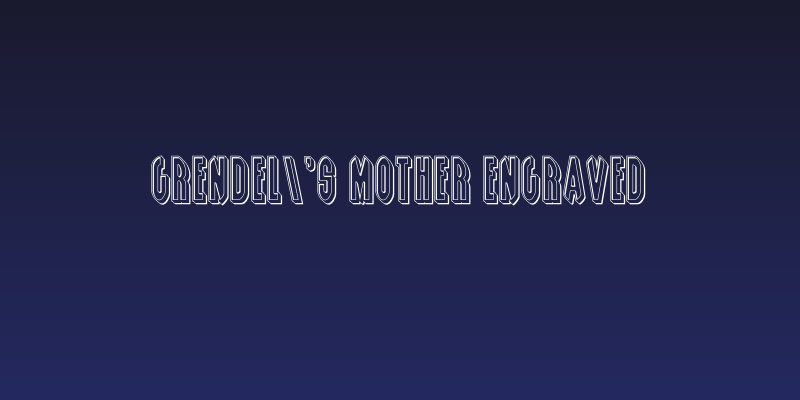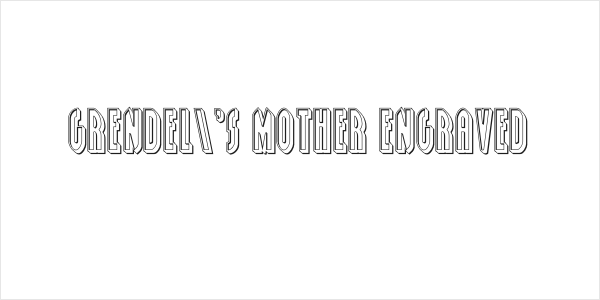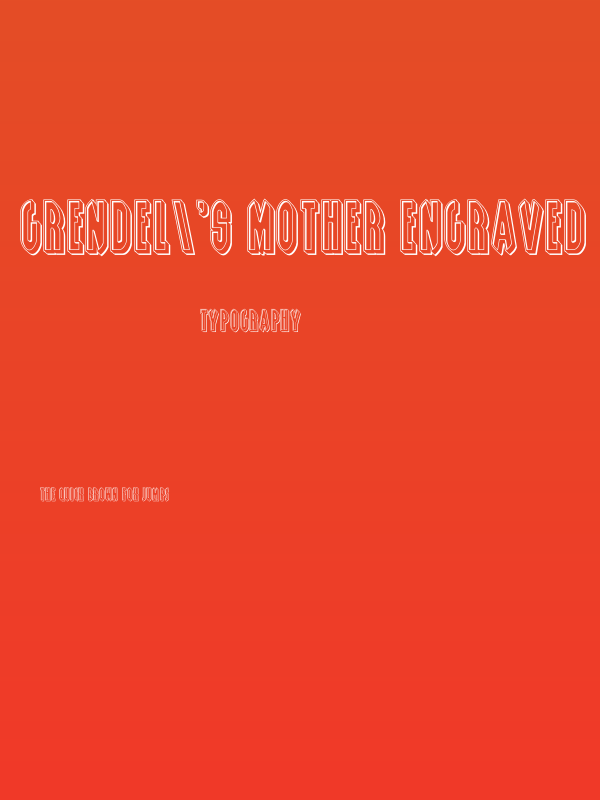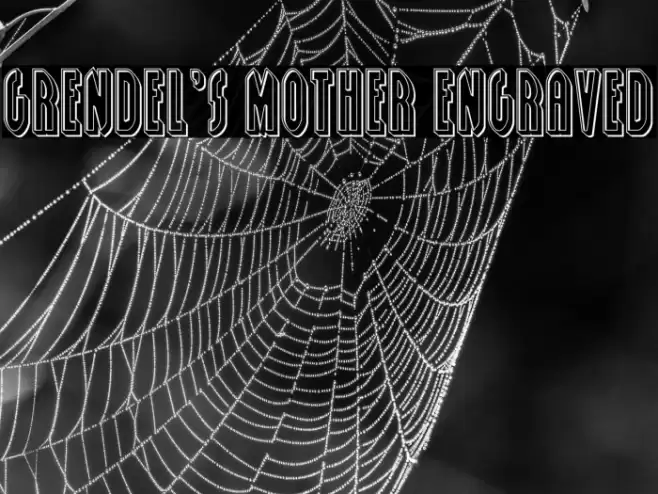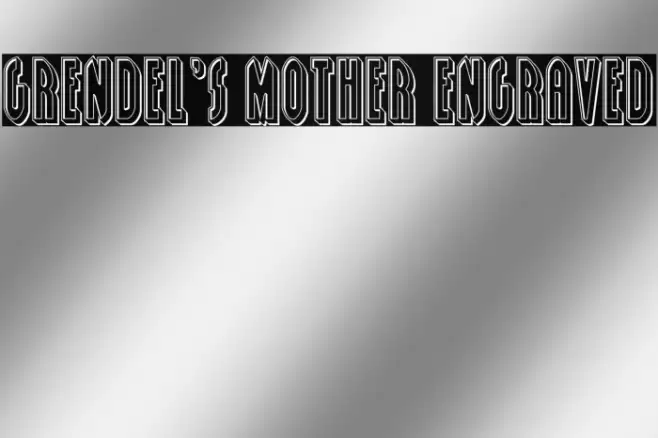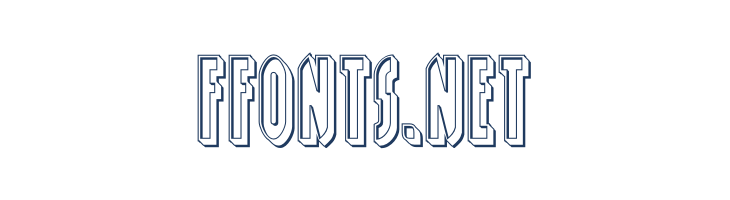
Grendel's Mother Engraved Font
This font features a bold, three-dimensional engraved style with a strong presence. The uppercase letters are characterized by their thick outlines and shadowed effect, giving them a striking, embossed appearance. The geometric shapes and sharp angles contribute to a modern and dynamic look, making it suitable for impactful designs. The numbers and special characters maintain the same bold and engraved style, ensuring consistency across all characters. This font is ideal for projects that require a bold statement, such as posters, headlines, or branding materials.
| Proposed Projects | Ideal for posters, headlines, branding, and any design needing a bold statement. |